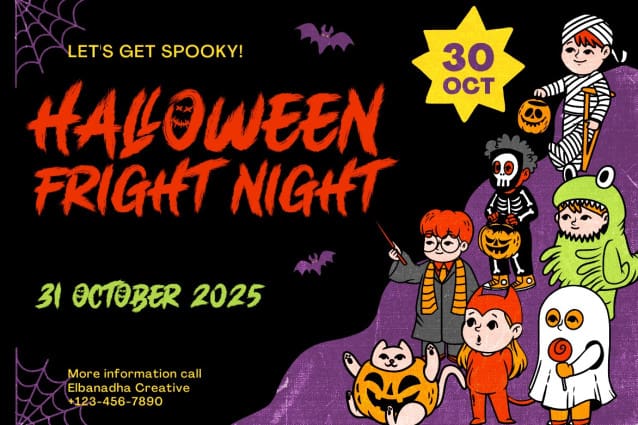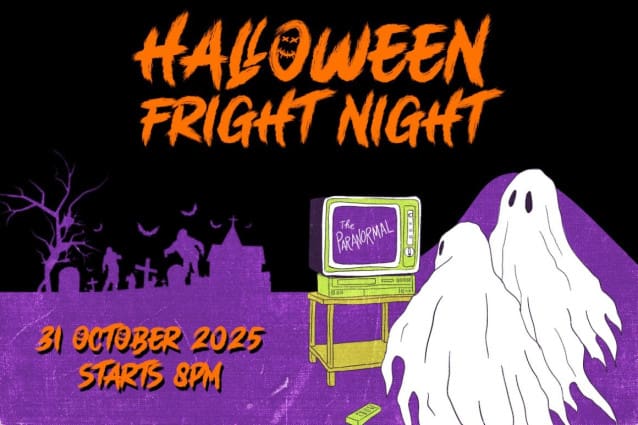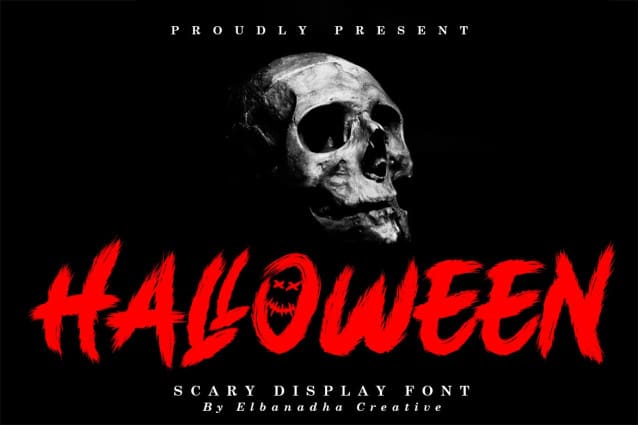
Halloween Scary Horror Font
Halloween Scary Horror Font, from Elbanadha Creative, suitable for any projects such as: logos, branding projects, homeware designs, product packaging, mugs, quotes, posters, shopping bags, t-shirts, book covers, name card, invitation cards, greeting cards, label, photography, watermark, special events, and all your other lovely projects that need a beautiful taste.